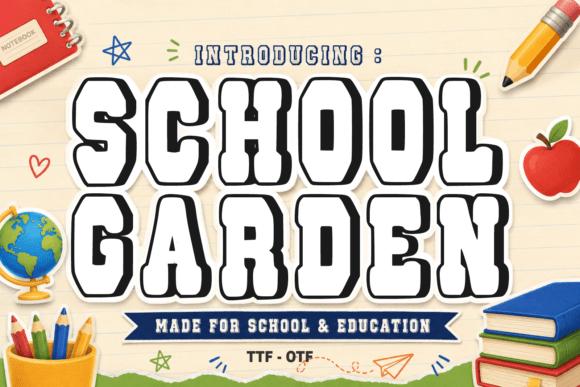
Adenman Posted 3 hours ago Share Posted 3 hours ago School Garden – Playful Education Display Font Bring joy, energy, and creativity into the classroom with School Garden! Inspired by the vibrant and fun atmosphere of childhood learning, this bold display font is specially crafted for teachers, students, crafters, and digital product creators. School Garden features a thick, chunky, and slightly rounded collegiate-meets-cartoon style that makes every word stand out. Whether you are creating classroom decor, personalized teacher gifts, or fun t-shirt designs, this font delivers a high-impact, friendly aesthetic that kids and adults will love. Giveaway Link –> https://www.creativefabrica.com/product/school-garden MrZeb 1 Quote Link to comment Share on other sites More sharing options...